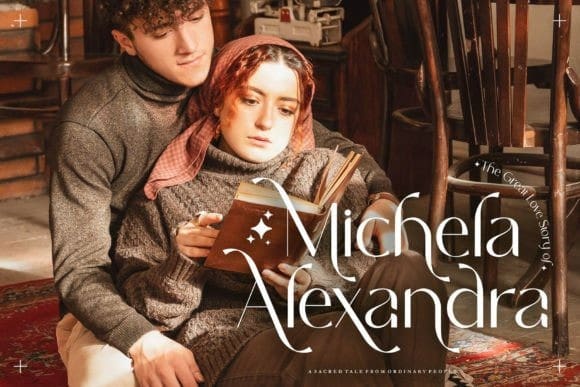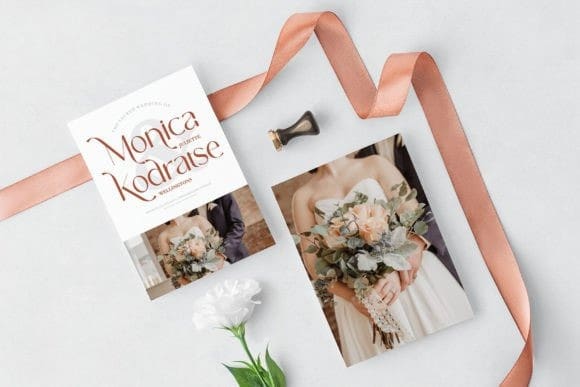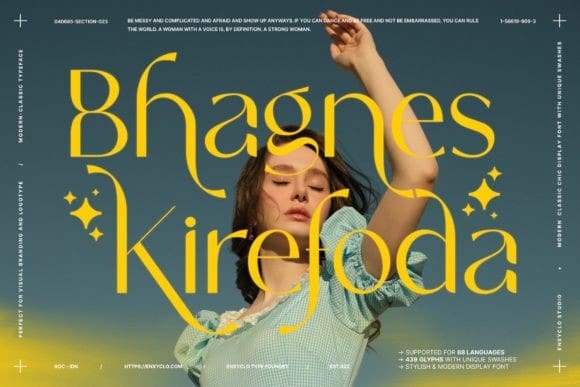
Bhagnes Kirefoda Font
Bhagnes Kirefoda Font, is unique modern chic sans font with unique swashes. Masterfully designed to become a true favorite, this font has the potential to bring each of your creative ideas to the highest level! It was purposely crafted to be used in large point sizes, although it doesn’t lose its magic in small point sizes.
It is perfect for creative branding, event, headline, billboard, magazines, website, titles, poster, branding, t-shirt design, and logos.
No matter the topic, this font will be an incredible asset to your fonts’ library, as it has the potential to elevate any creation. With this beautiful font, absolutely you can make your project stand out from the rest. See the previews above to get some inspiration on how to use them.